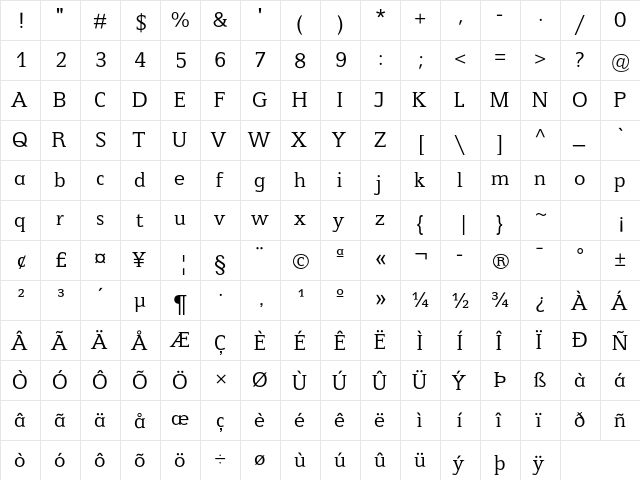
Jeunesse Slab Std Regular Font Preview
Jeunesse Slab Std Regular
Design Context for Jeunesse Slab Std Typeface
Jeunesse Slab Std features prominent, blocky serifs that give it a confident, grounded presence — equally at home in editorial settings and bold branding work.
Works well in editorial design, news publishing, impactful branding, and poster typography.
Pro Tip: Try Jeunesse Slab Std set tight in headlines for a classic editorial feel. Its slab serifs create strong horizontal rhythm that anchors a page layout.